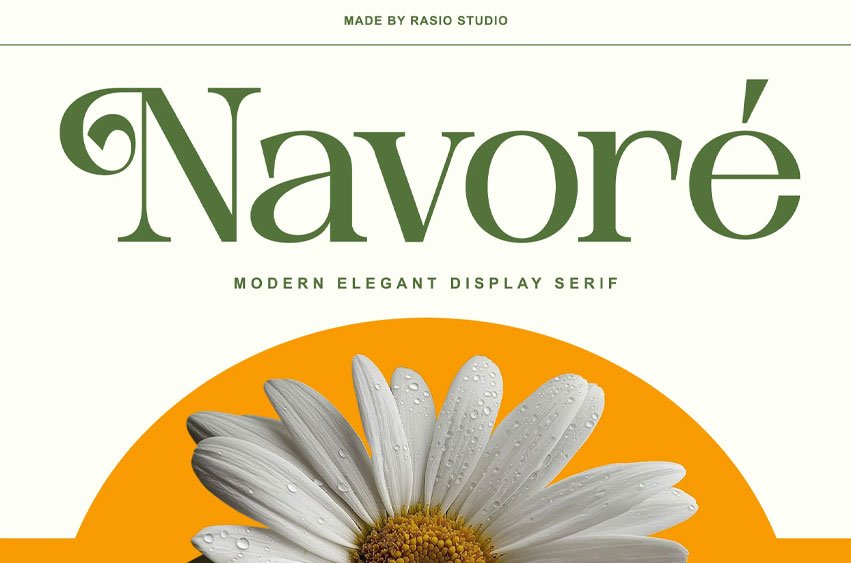
Navore Font Modern Display Serif Font is a contemporary display serif typeface inspired by botanical elegance and refined editorial aesthetics. The design combines smooth high-contrast strokes, graceful curves, and distinctive ornamental terminals that create a sophisticated personality while maintaining exceptional readability. Its decorative uppercase forms and balanced lowercase characters give every headline a memorable, premium appearance. Navore includes uppercase and lowercase characters, numerals, punctuation, ligatures, and stylistic alternates.
The typography features flowing serif details, generous proportions, and carefully crafted spacing that perform beautifully across luxury branding, floral identities, beauty packaging, and editorial compositions. Elegant alternates and decorative accents introduce subtle personality without overpowering the overall design, making the font suitable for both expressive titles and polished brand identities.Optimized for professional creative workflows, it delivers refined typography for print and digital applications while preserving consistency across branding, packaging, publishing, and marketing materials.
Suitable For: Navore is perfect for Floral studios, botanical brands, beauty and skincare packaging, cosmetic collections, luxury fashion labels, perfume branding, boutique businesses, wedding invitations, event stationery, editorial magazines, book covers, premium product packaging, café branding, lifestyle campaigns, artisan product labels, logo design, visual identity systems, social media branding, elegant presentations, and sophisticated marketing materials.